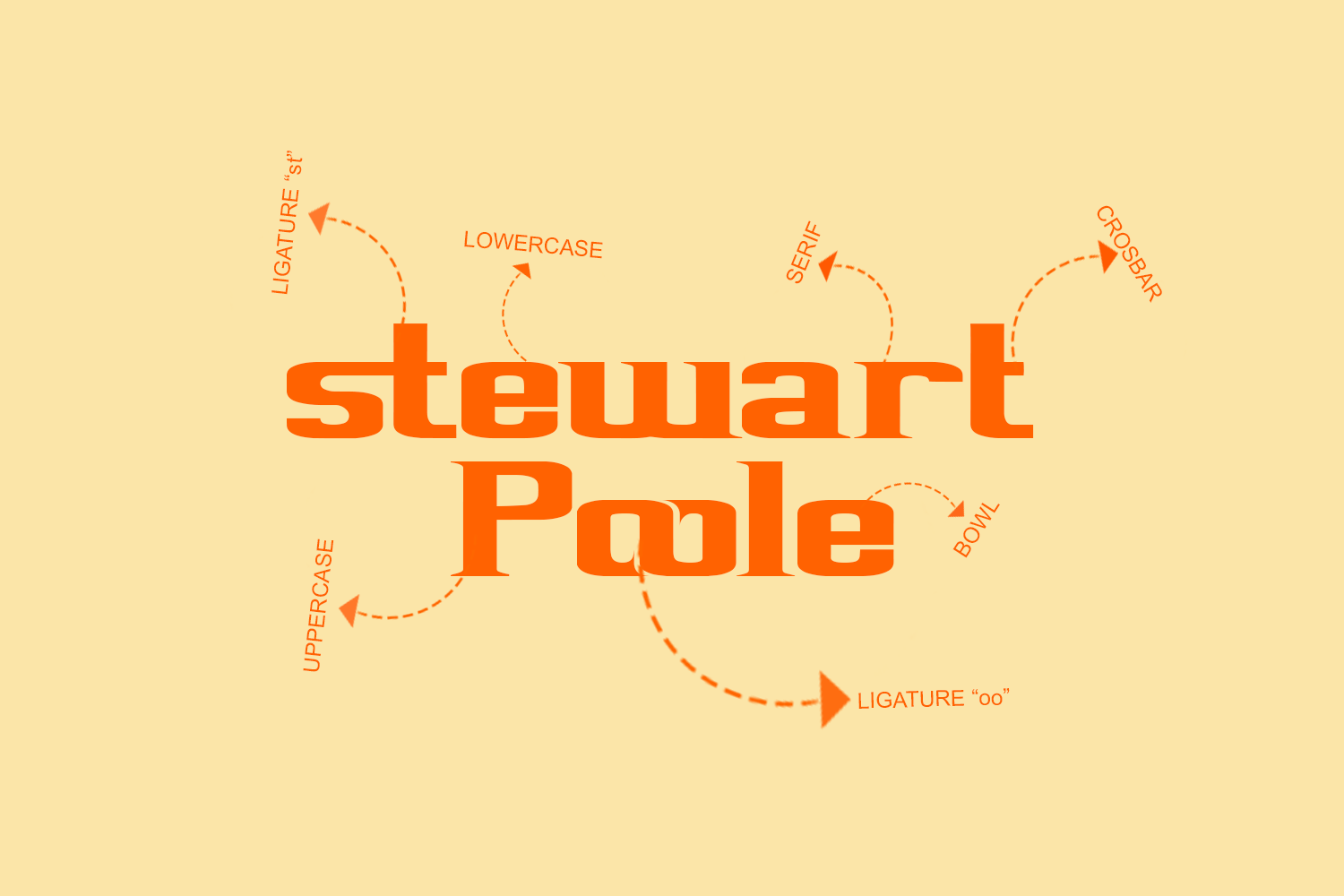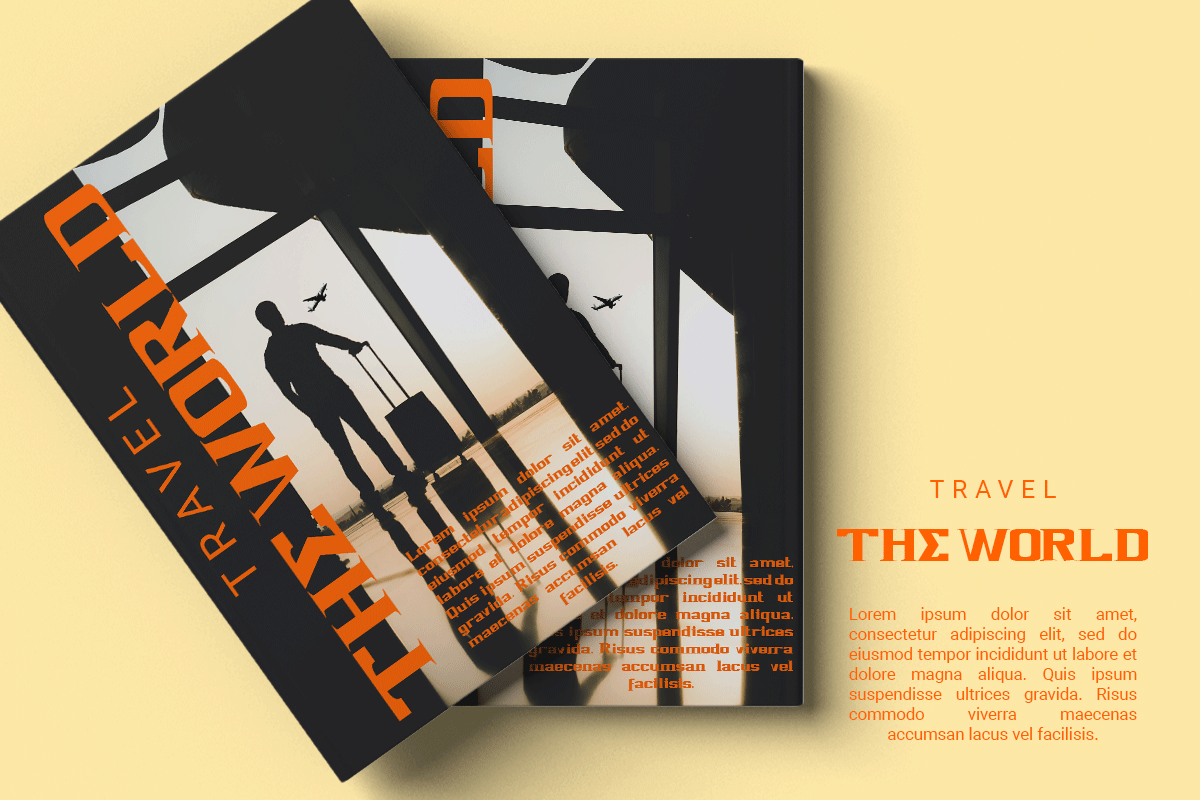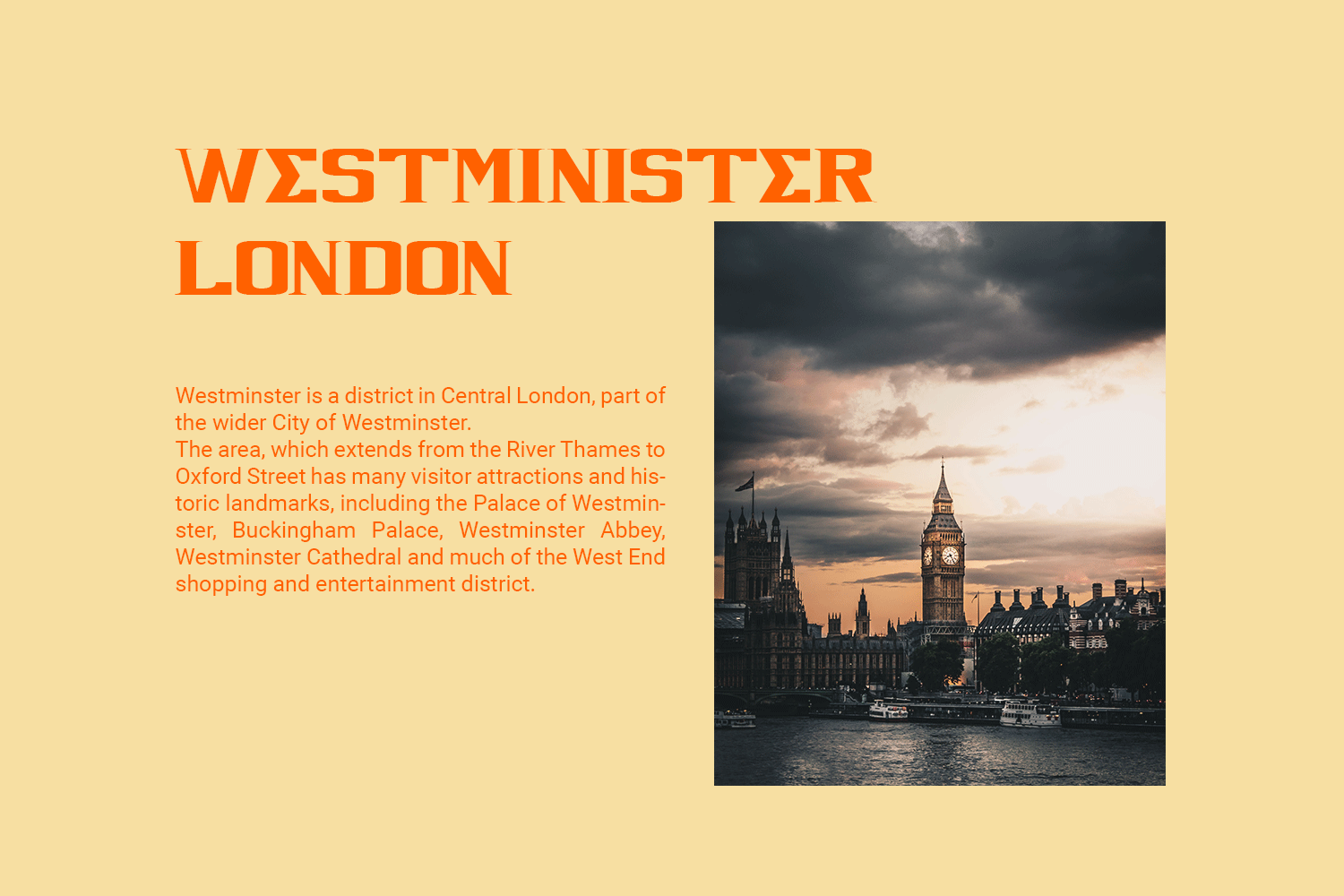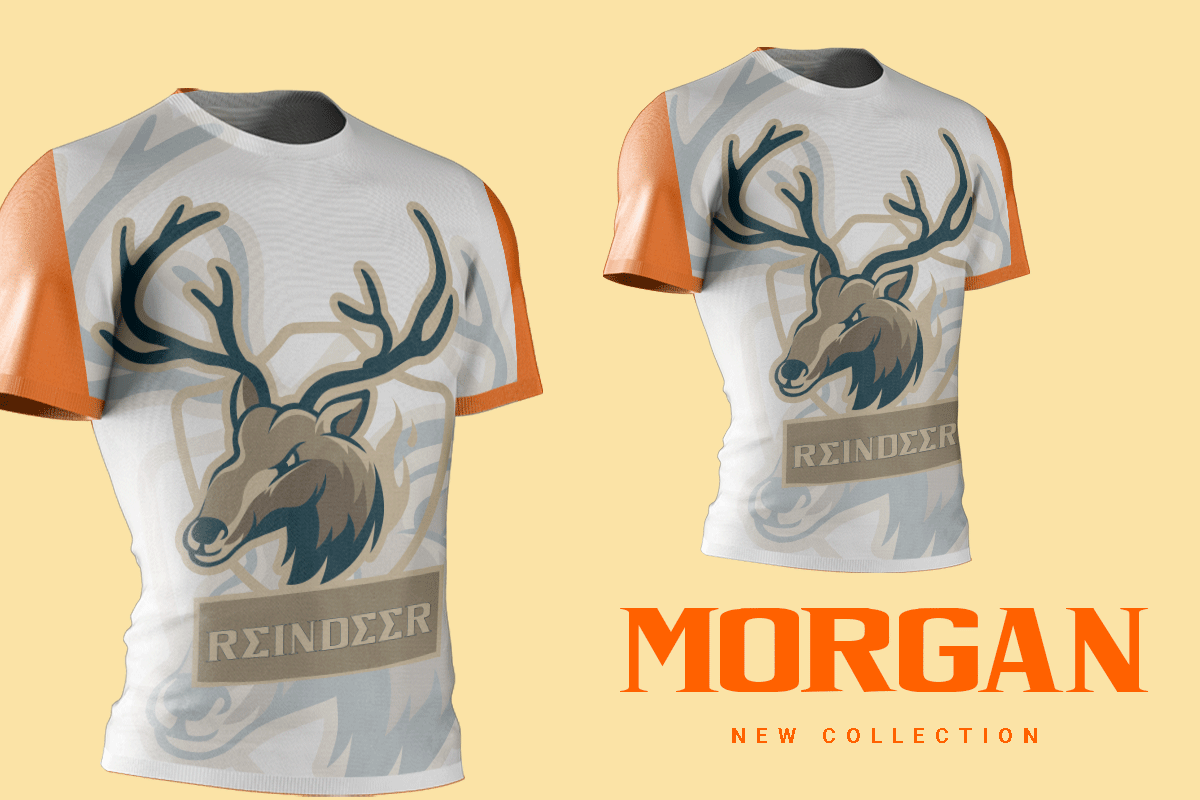
Clive Free Font
Meet Clive Free Font, the epitome of coolness embodied in a bold and robust serif font. With its commanding and substantial letterforms, this font emanates strength, confidence, and a sense of dynamic energy. Elevate your designs with an abundance of stylish personality through the undeniable charisma of Clive. This free typeface was designed by a talented Glorytype Studio. If you like it don’t forget to check out the full version.